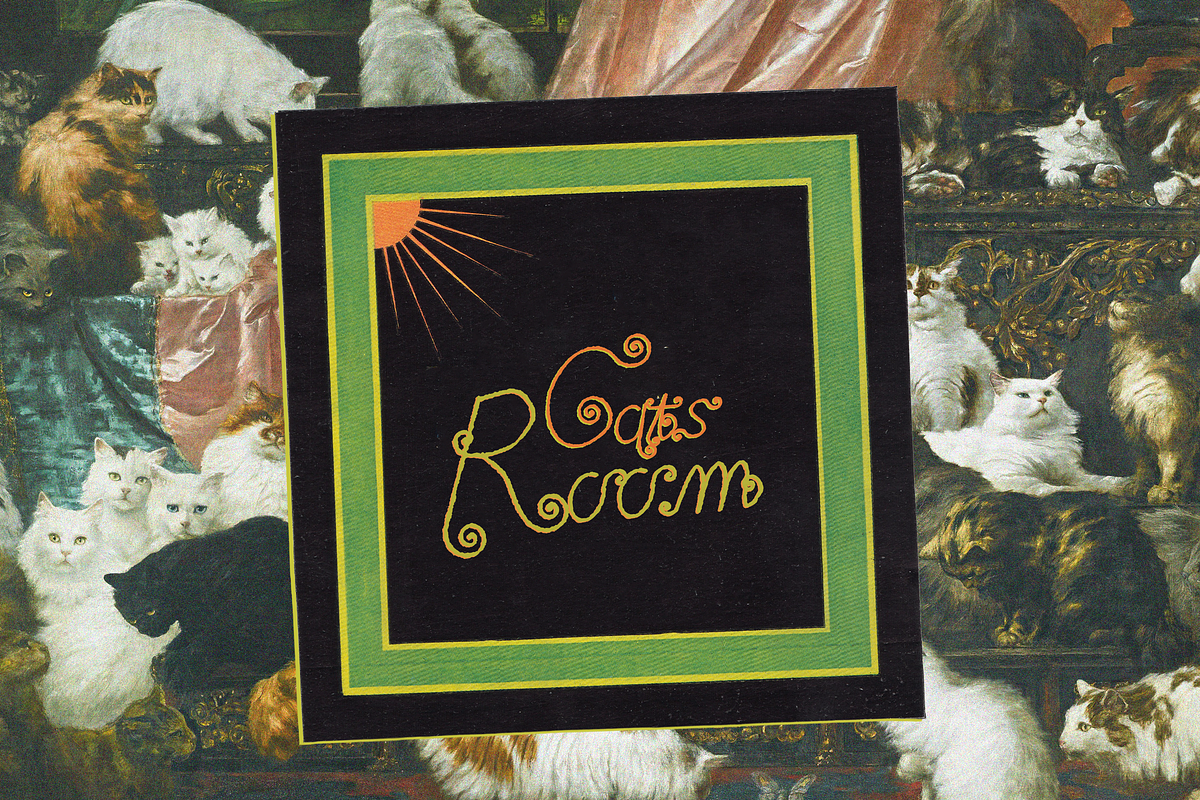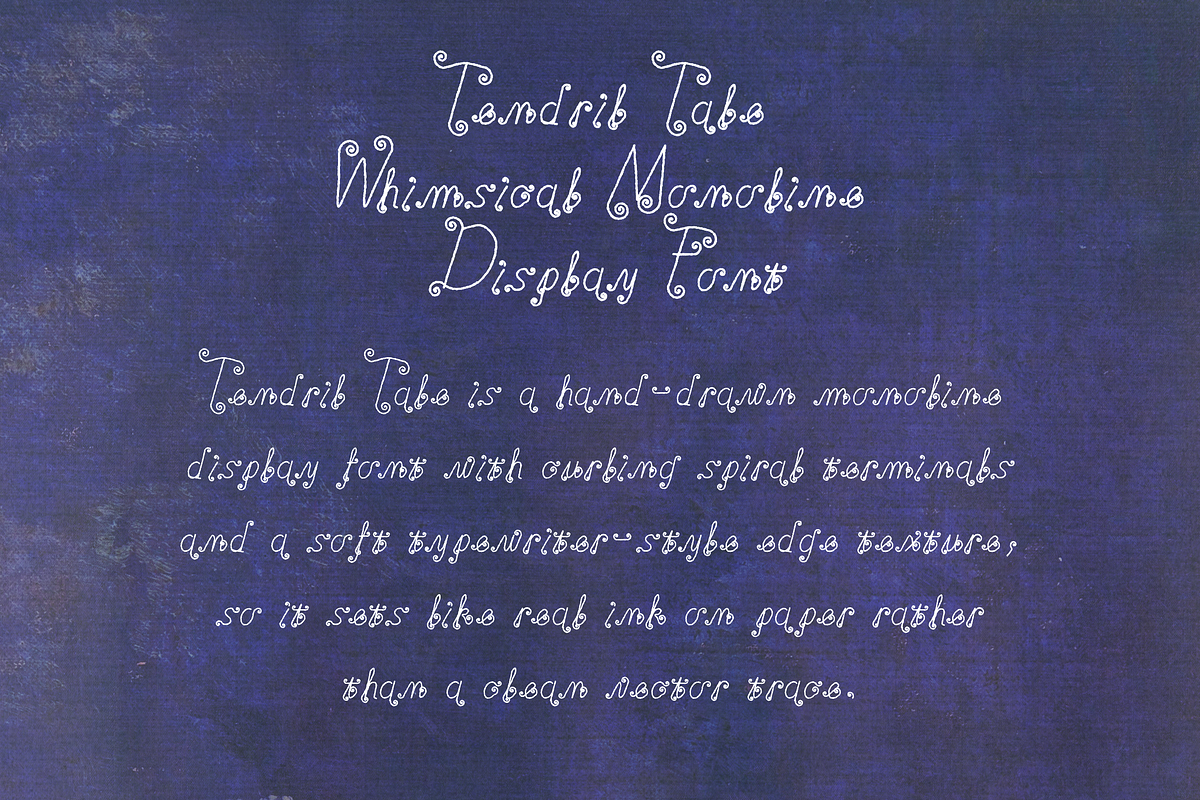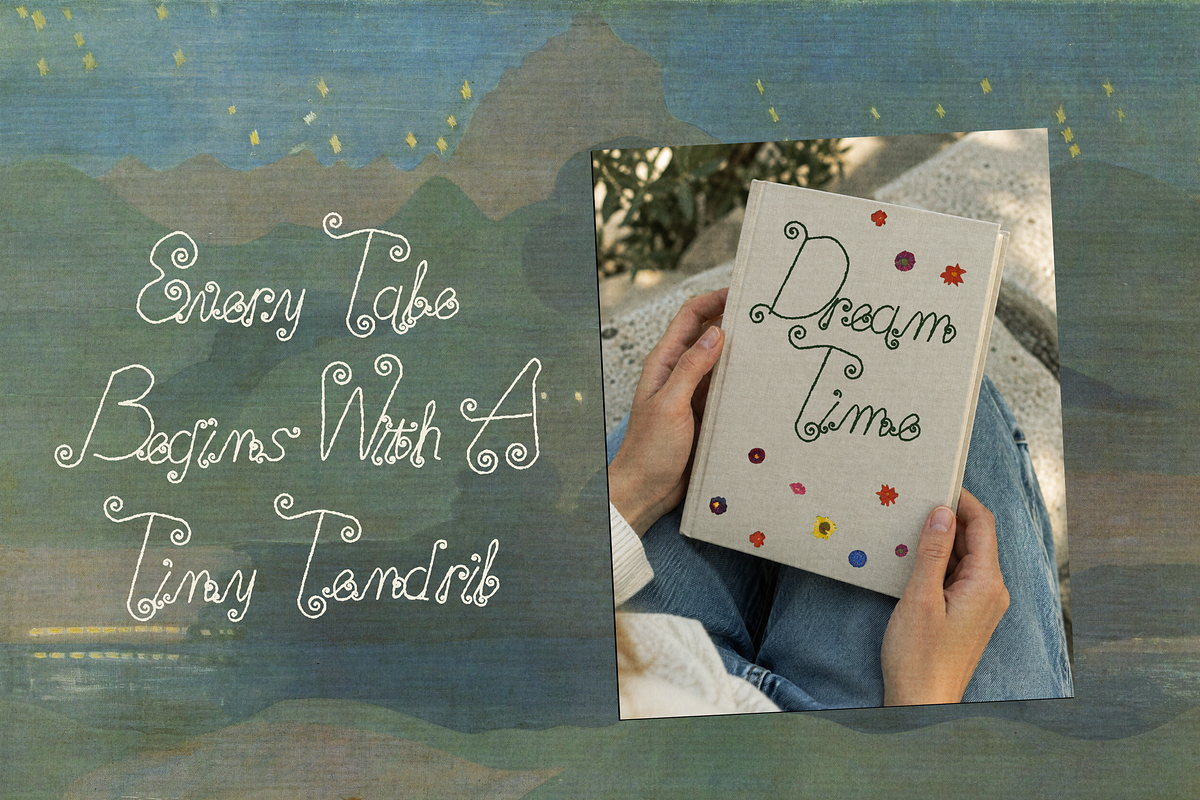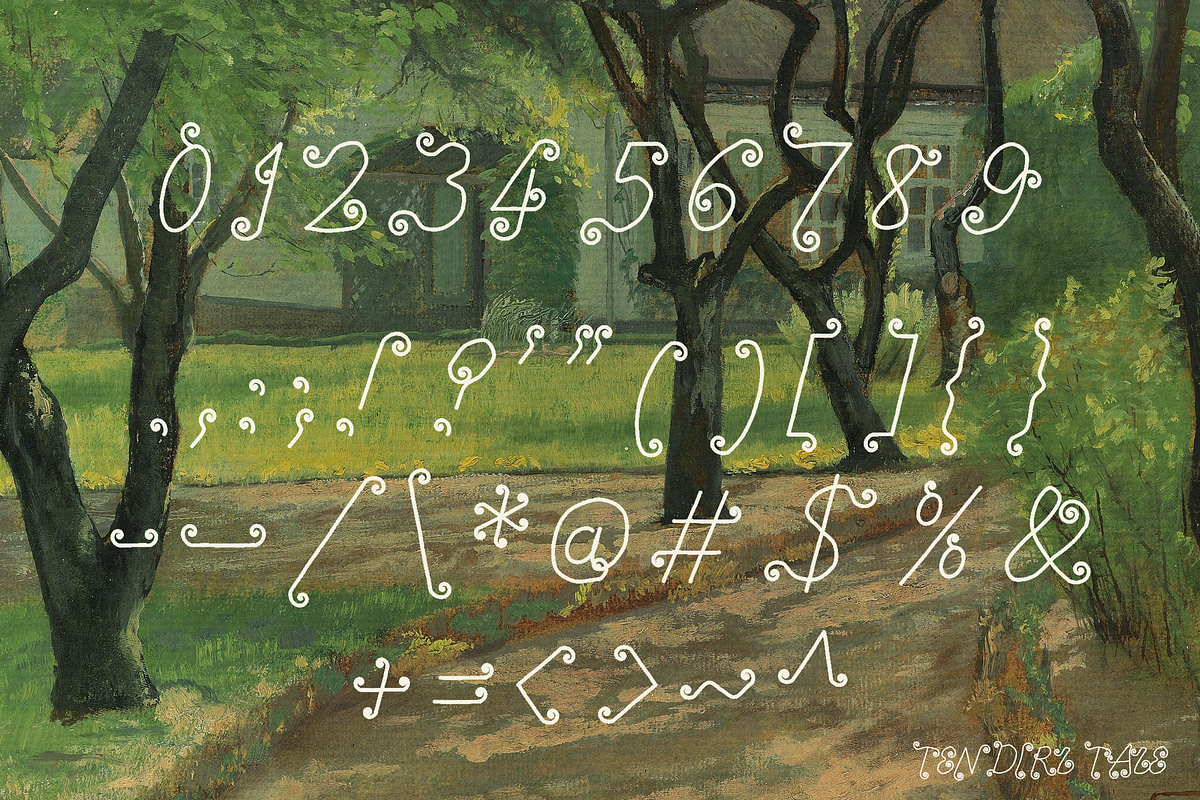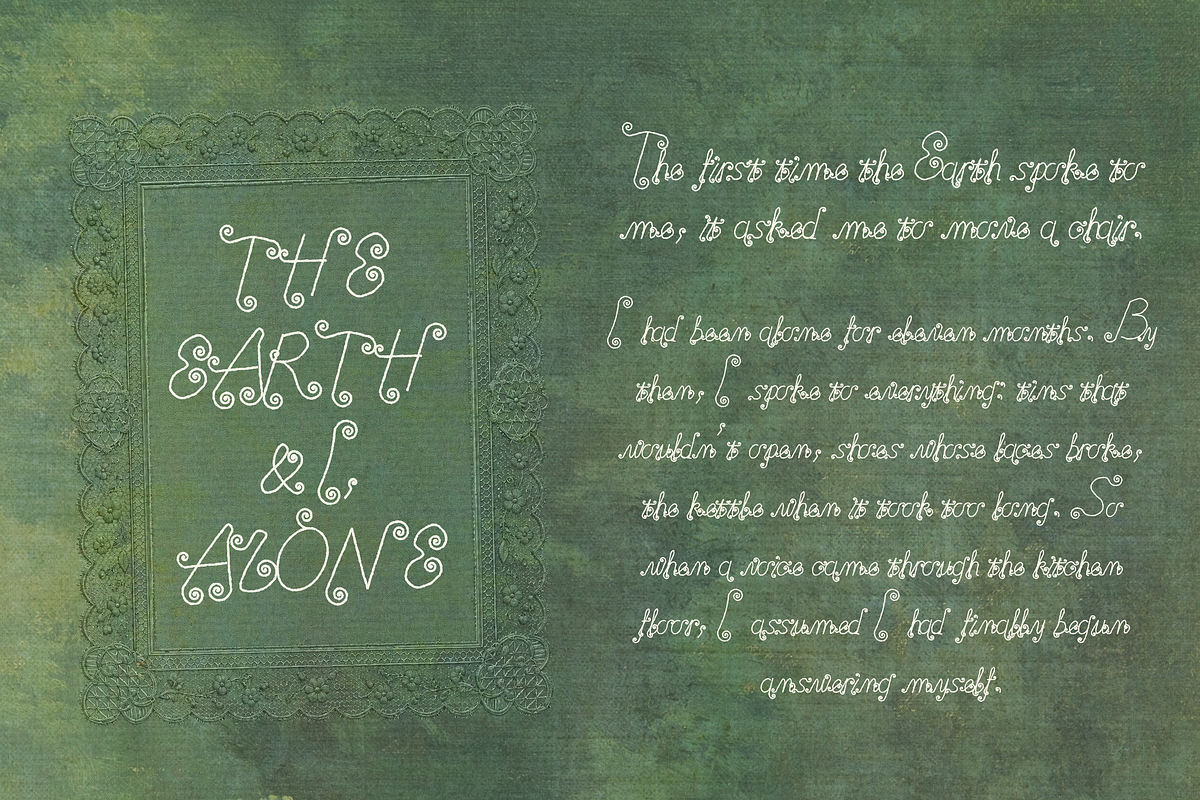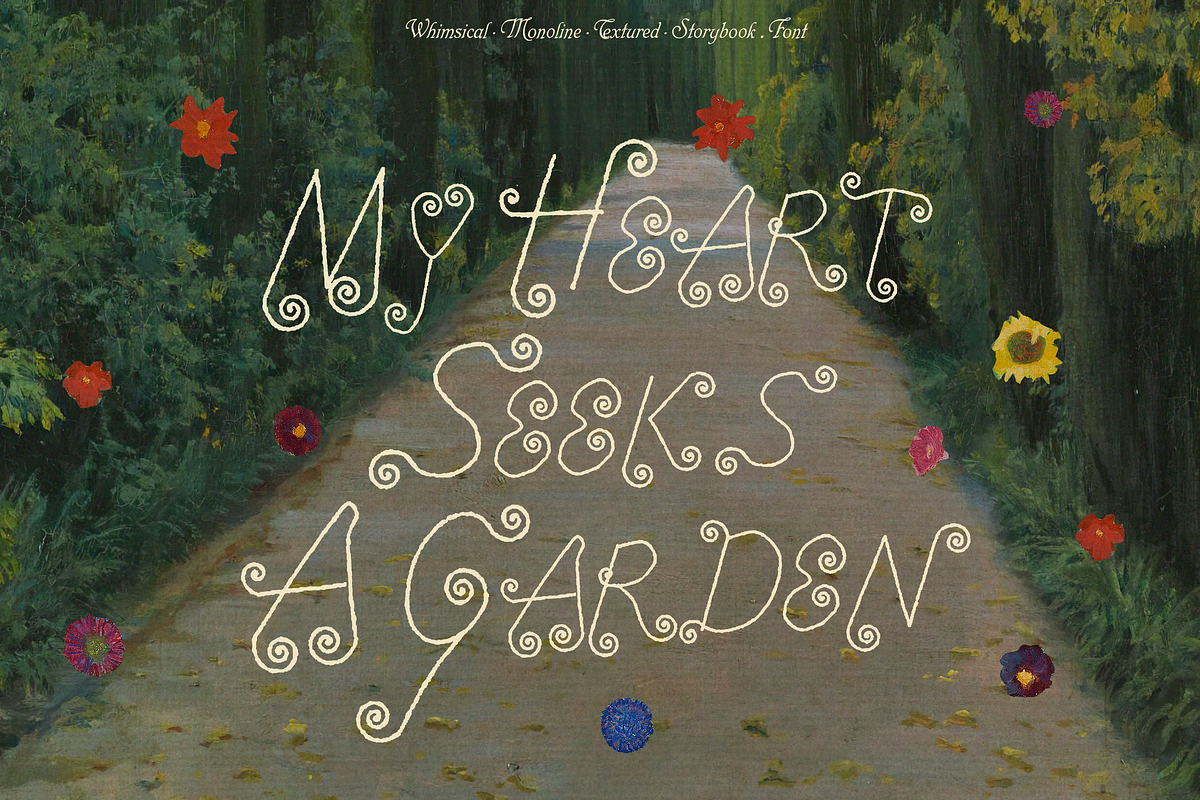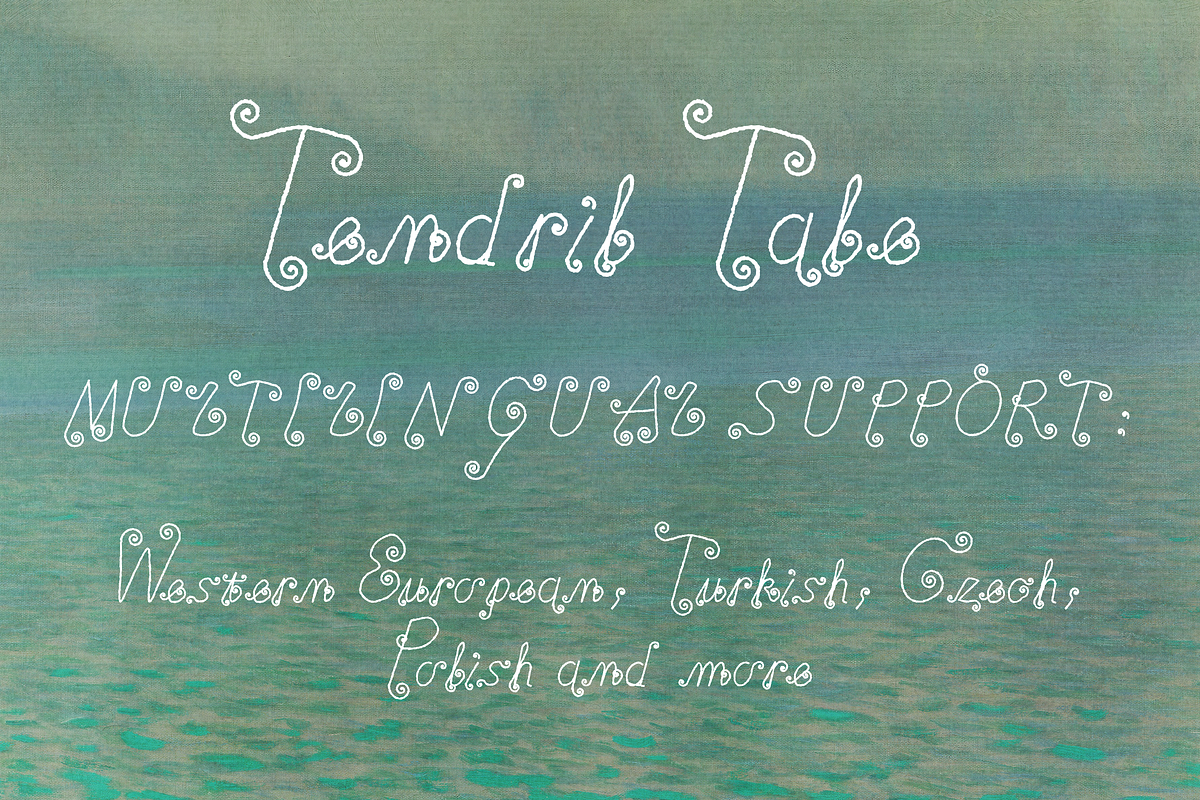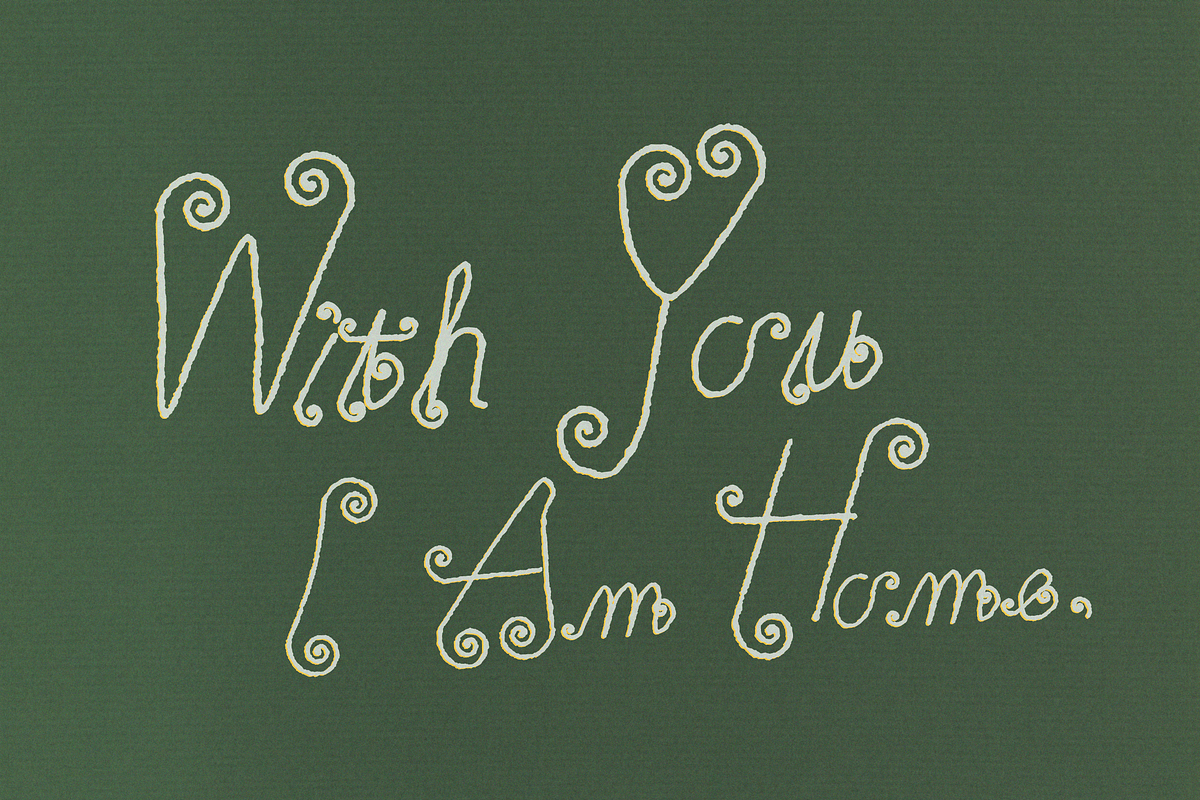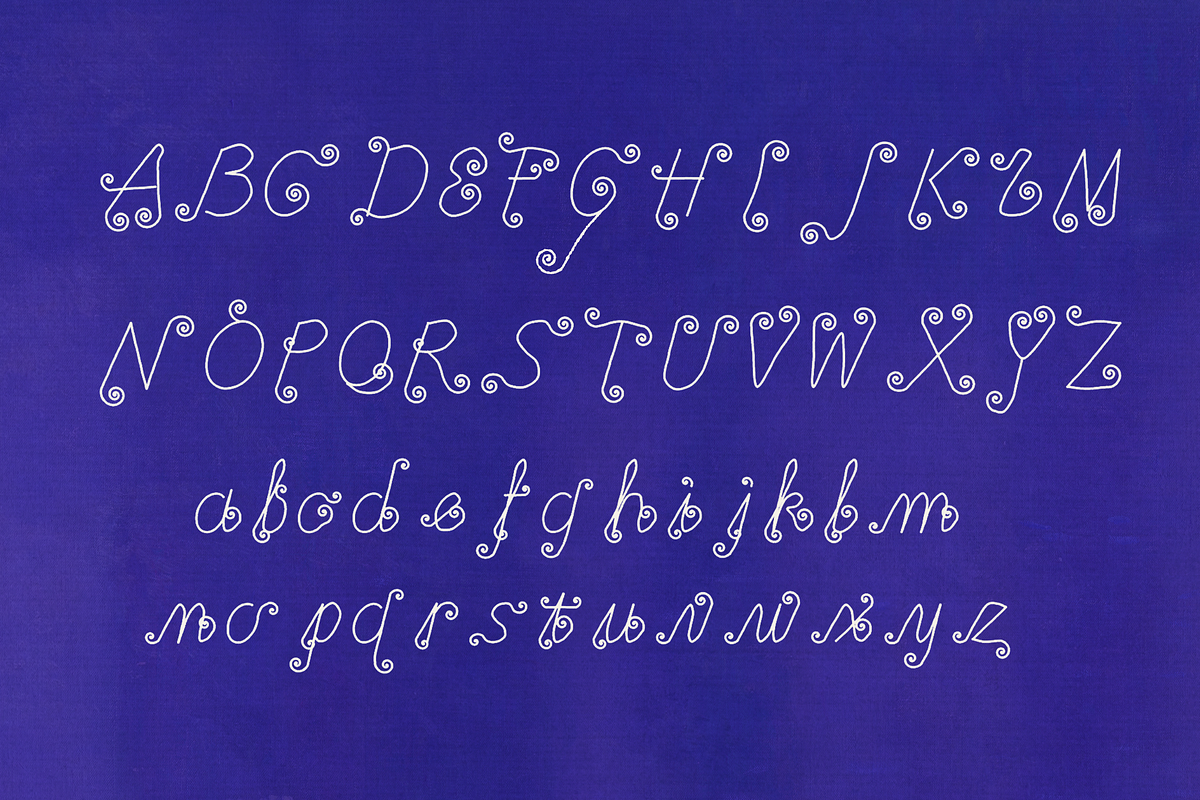
Tendril Tale - Monoline Display Font
Tendril Tale - Whimsical Monoline Display Font
Tendril Tale is a hand-drawn monoline display font with curling spiral terminals and a soft typewriter-style edge texture, so it sets like real ink on paper rather than a clean vector trace.
The capitals stand tall with long sweeping tails; the small letters sit low and tuck in close beneath them, giving words that slightly crooked, once-upon-a-time storybook feel. It's made for big sizes: book covers, children's branding, poster titles, wedding signage, packaging, greeting cards, tea and candle labels — anywhere a little fairytale charm is welcome.
Uppercase, lowercase, numerals & punctuation - 218 glyphs
Multilingual support: Western European, Turkish, Czech, Polish and more
Hand-tuned kerning